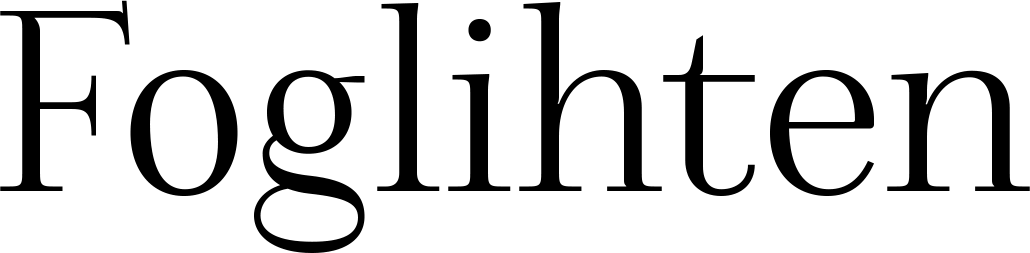
Foglihten Font
Designed byGluk
For having a flawless text design what comes first is going with the right font. Foglihten is a serif font that suits plenty of content needs such as books, menus, magazines, etc. It comes in 2 distinct versions and allows you to get your favorite or a combination of both. Don’t hesitate and bring a formal vibe to your text layout.